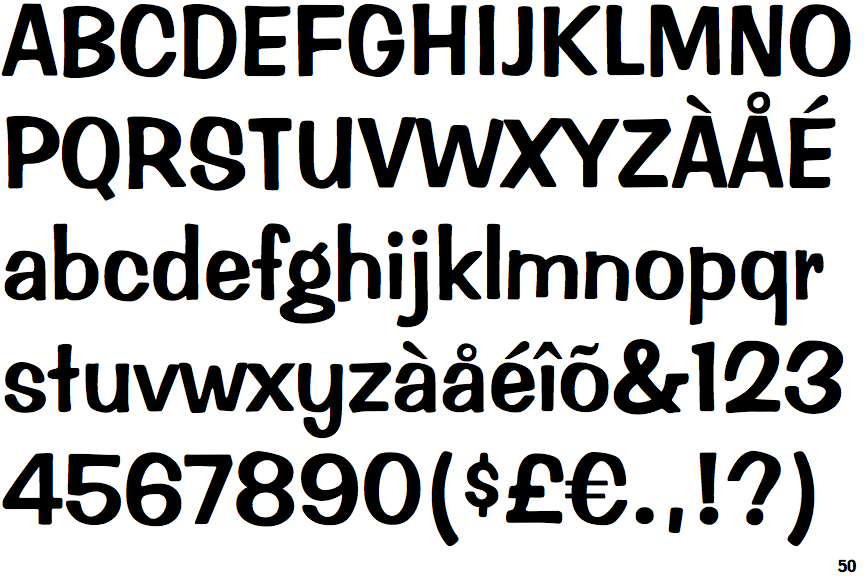
Dom Casual Font Similar. Originally designed by peter dombrezian for american type founders in 1952. Use the selector above to match other fonts in the family.
It is an informal font that emulates brush script. Buy this font online from: It is an informal design that emulates brush script.
One Of The Widest Script Fonts For Tight Vertical Spaces.
Dom casual is an american typeface designed in 1951 by peter dombrezian. Browse our collection of fonts similar to dom™ casual std regular (d): Use the selector above to match other fonts in the family.
Browse our collection of fonts similar to dom casual pro: Cartoons , and is currently used in various labels on. Dom casual was often seen in 1960s.